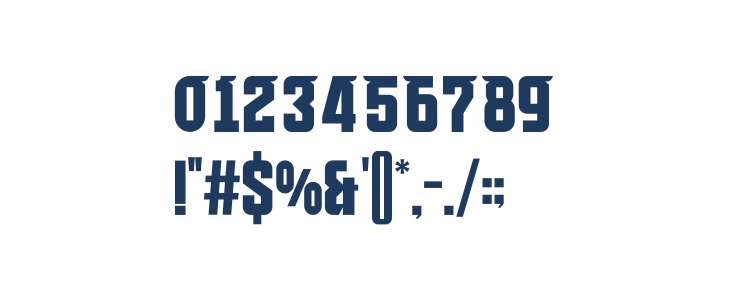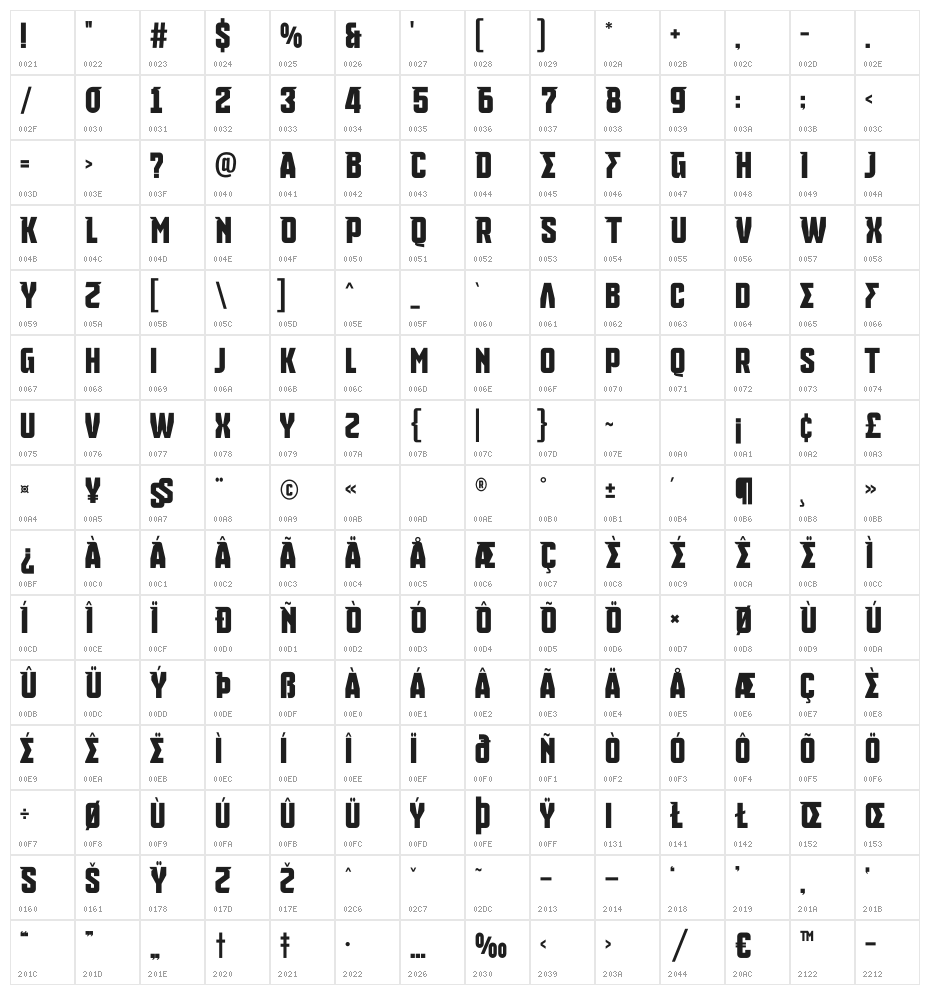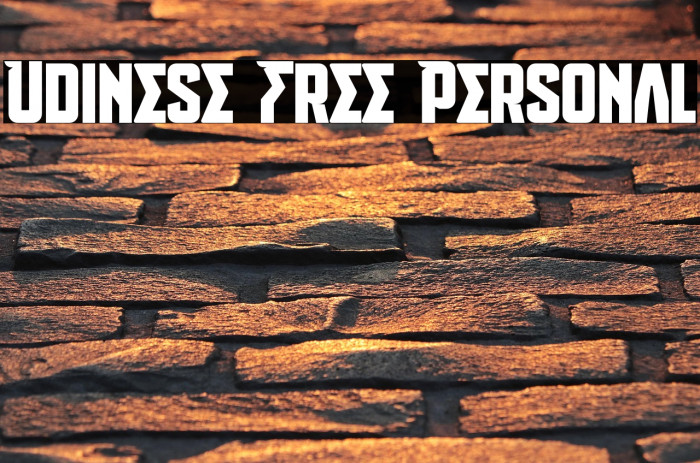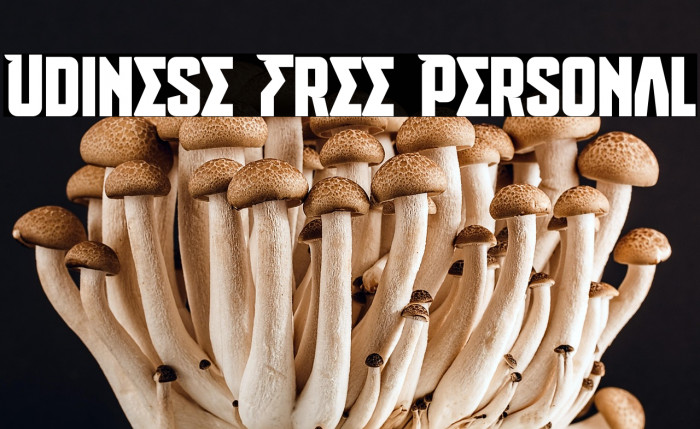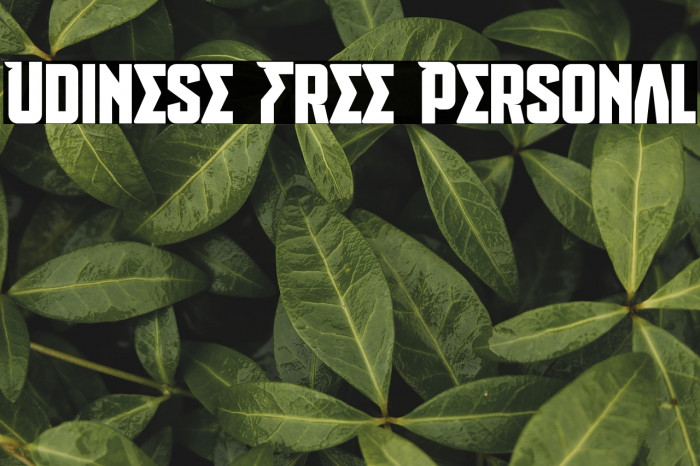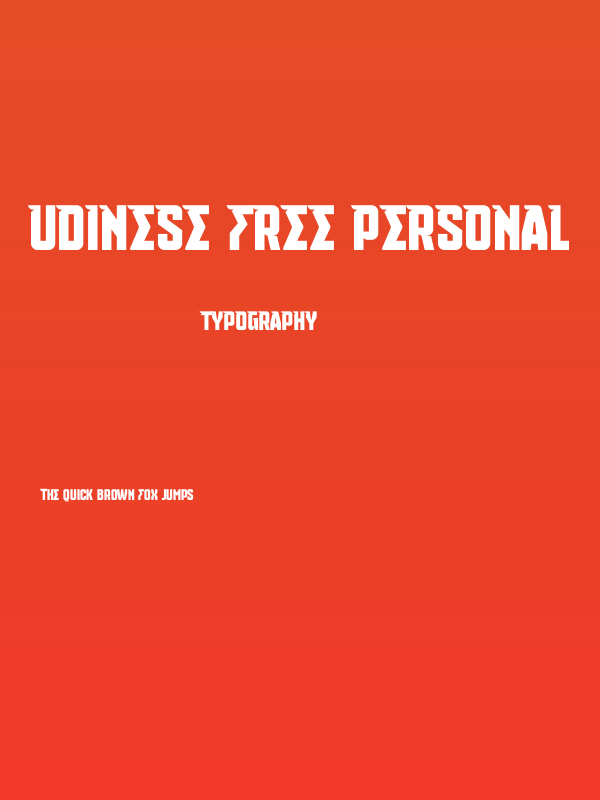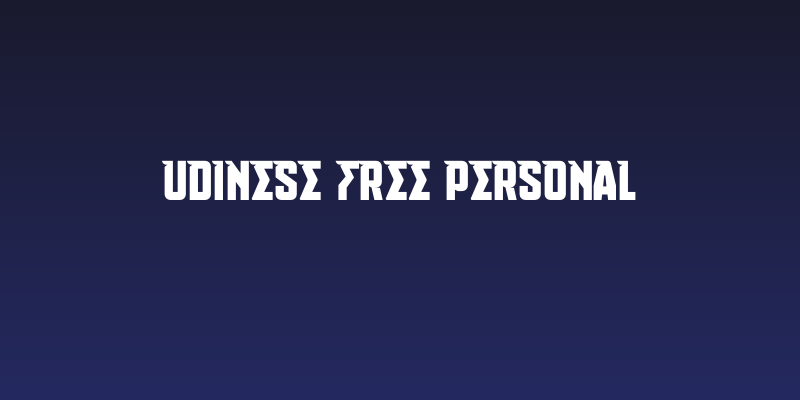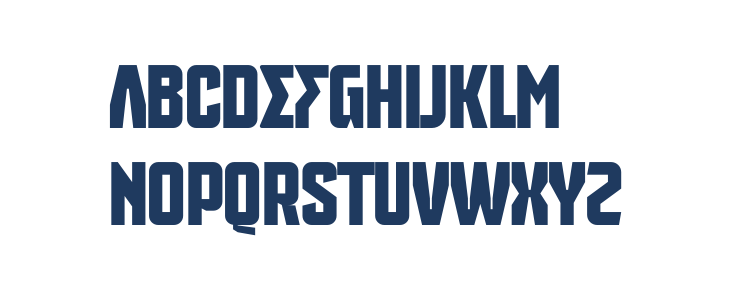
Udinese Free Personal Font
Udinese Free Personal Description
This font features a bold and striking design with geometric elements and sharp angles, creating a sense of strength and modernity. The uppercase letters are particularly distinctive, with unique shapes that make them stand out. The numbers and special characters maintain this bold style, ensuring consistency throughout. The font's design is both eye-catching and functional, making it suitable for various creative applications.